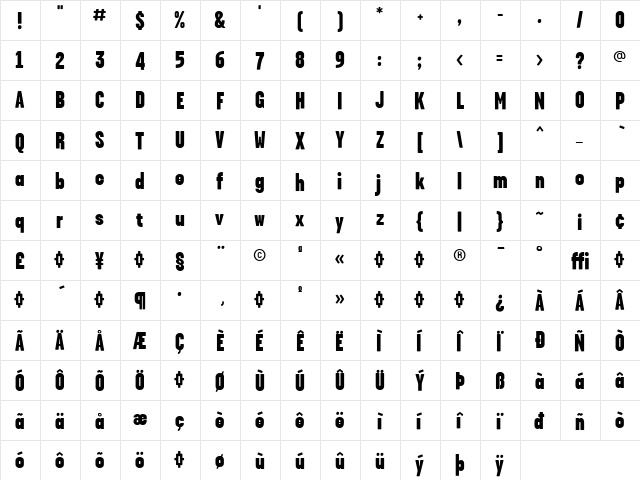
GarageGothic-Black Regular
Design Context for GarageGothic-Black Typeface
GarageGothic-Black has the quiet confidence of well-executed sans-serif typography: versatile, unobtrusive, and dependable at any size.
Font Pairing: Works well alongside a characterful serif or display font that can carry the expressive load while GarageGothic-Black handles the functional copy.
Pro Tip: Pair GarageGothic-Black with a display or serif font for headlines — its neutral character makes it an excellent supporting player in complex typographic systems.